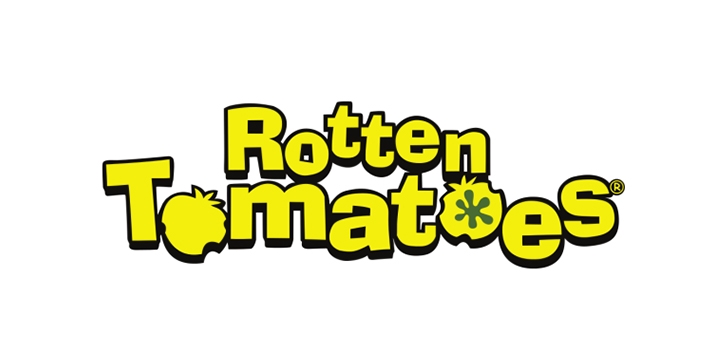
What Font Does Rotten Tomatoes Use For The Logo?
The font used for Rotten Tomatoes logo is very similar to Ad Lib, which is a display sans serif font designed by Freeman Craw and published by Bitstream. Here's the download link.